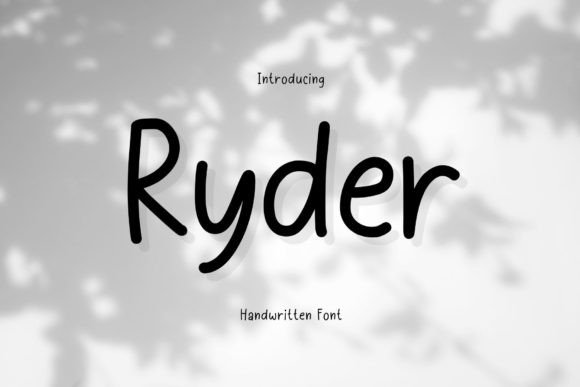
Behold, the Ryder Font, the latest creation from Brown Cupple Fonts. This enchanting script font oozes charm and originality, making it the ultimate choice for crafting captivating business cards that leave a lasting impression.
Embrace Ryder's playful character, a whimsical dance of lines that exudes authenticity and personality. Its unique style perfectly complements any project, adding a touch of charm to blog posts, logos, branding, advertisements, invitations, greeting cards, planners, photo albums, decorations, and more.
Unleash your creativity and let Ryder transform your designs into captivating works of art. Its versatility knows no bounds, making it the perfect companion for any design project, whether you're a seasoned professional or just starting your creative journey.
Picture this: a business card adorned with the Ryder Font. The playful strokes of each letter hint at the passion and dedication behind your brand. It's a card that speaks volumes about your commitment to excellence and your unwavering desire to connect with customers on a personal level.
With Ryder, you're not just creating a business card; you're crafting an experience. Each interaction with your card becomes a memorable moment, leaving a lasting impression that resonates long after the card is received.
Embrace the Ryder Font and watch as your business flourishes. Let its captivating charm attract new customers and inspire loyalty among existing ones. It's the key to unlocking a world of possibilities, where creativity meets success.
Elevate your business cards to new heights of sophistication and charm with Ryder. Unleash your imagination and create designs that captivate and inspire. Let your business cards speak for themselves, reflecting the essence of your brand and leaving a lasting impression on all who encounter them.